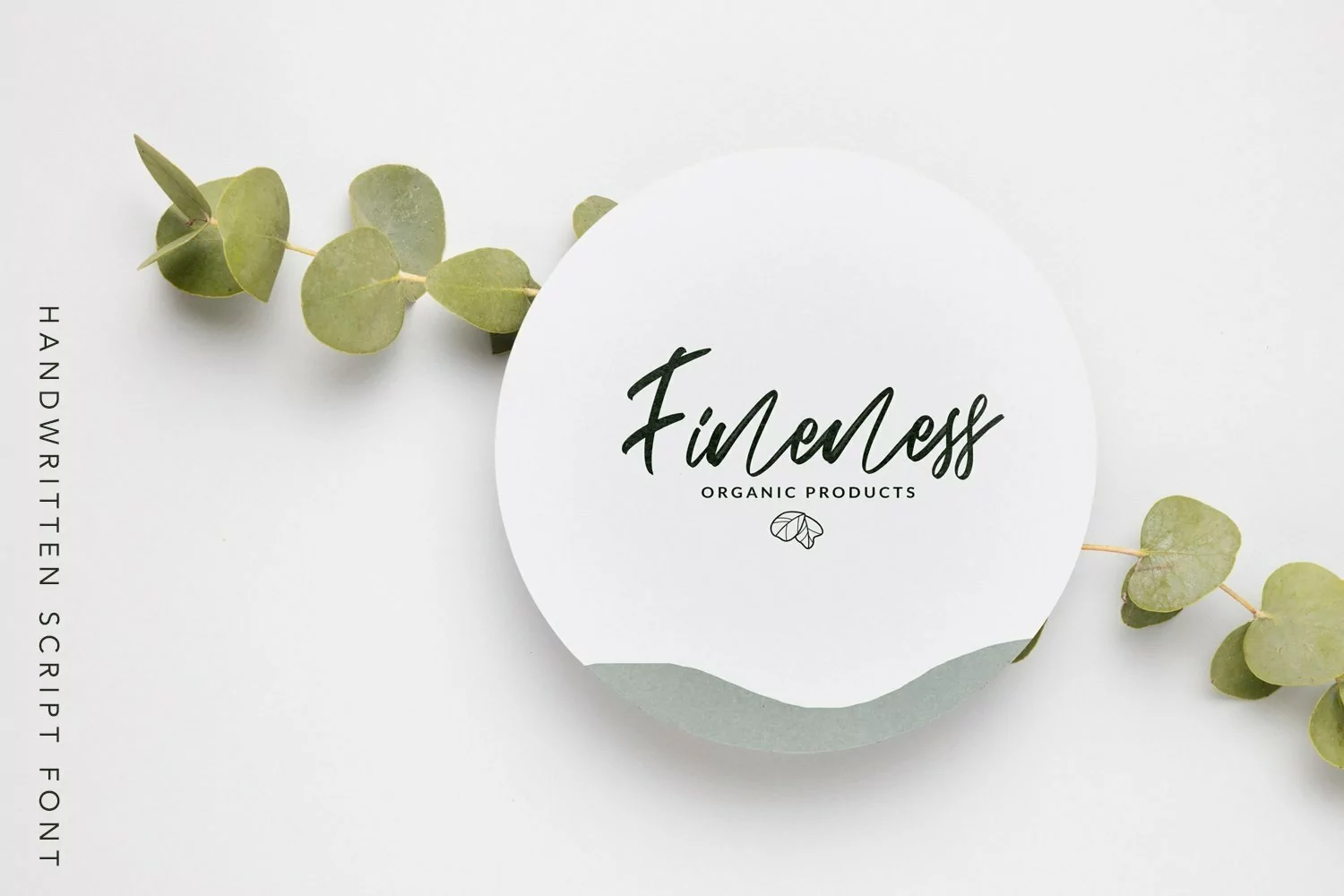
Mondoloops - Script Brush Fonts that contain lowercase, uppercase, symbol, and also support multi language. There’s a lot ligatures in this font. This Font also comes with ligatures, alternates and many more. this font suitable for fashion, branding, catalog and other design what you want.